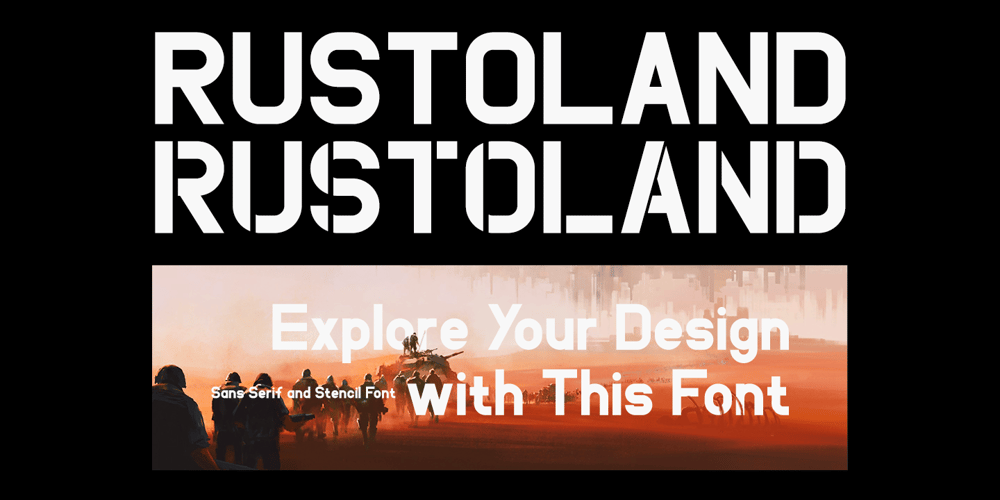
Rustoland
Rustoland font
Rustoland Font Family was designed by Hayinah and published by Rockboys Studio. Rustoland contains 1 styles and family package options. Rustoland is a cool, bold and modern display font. It is PUA encoded which means you can access all of the glyphs and swashes with ease! Add it confidently to your favorite creations and let yourself be amazed by the outcome generated.